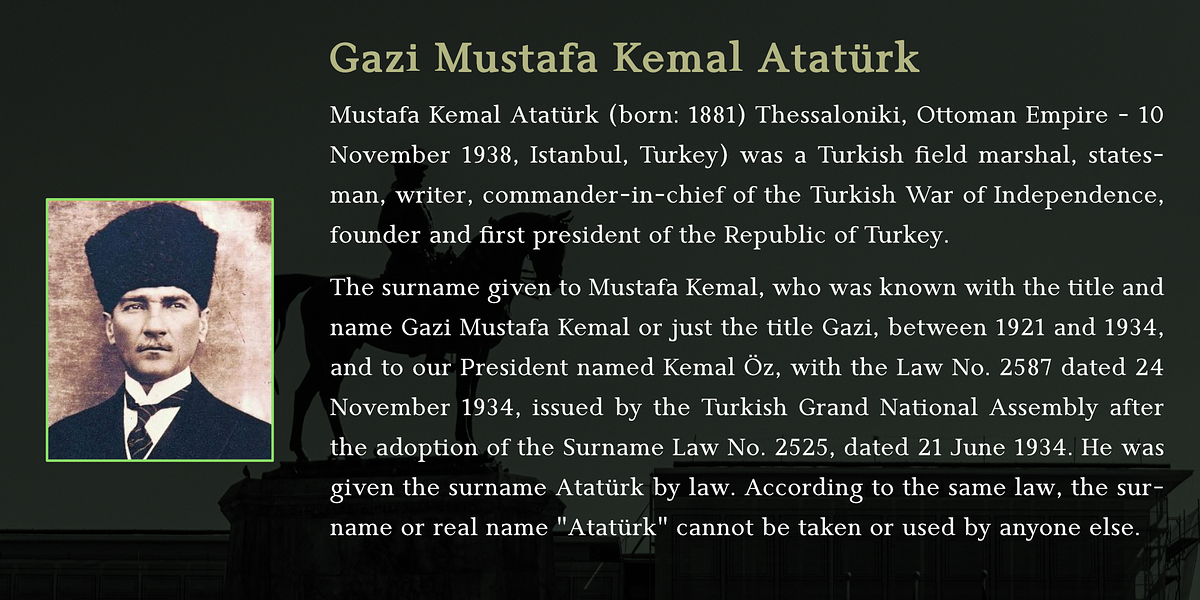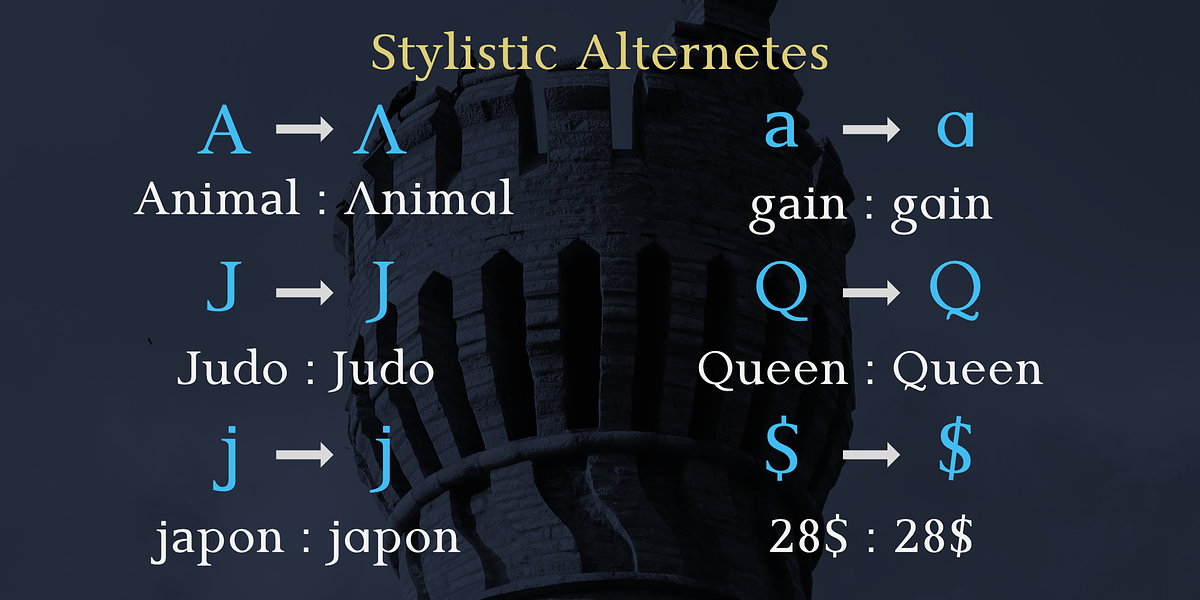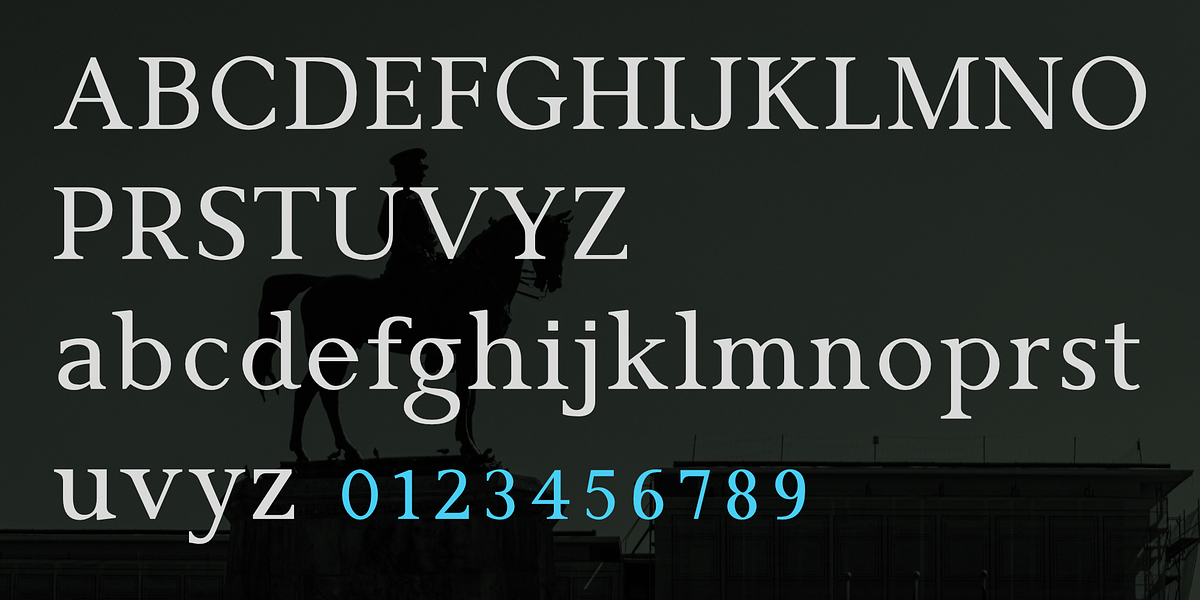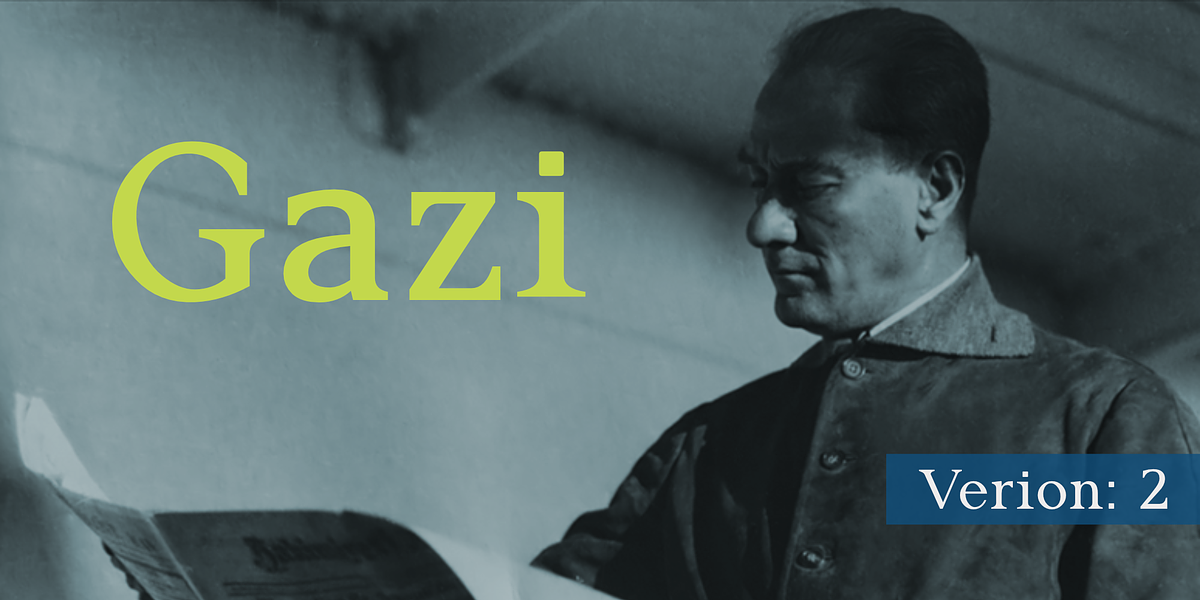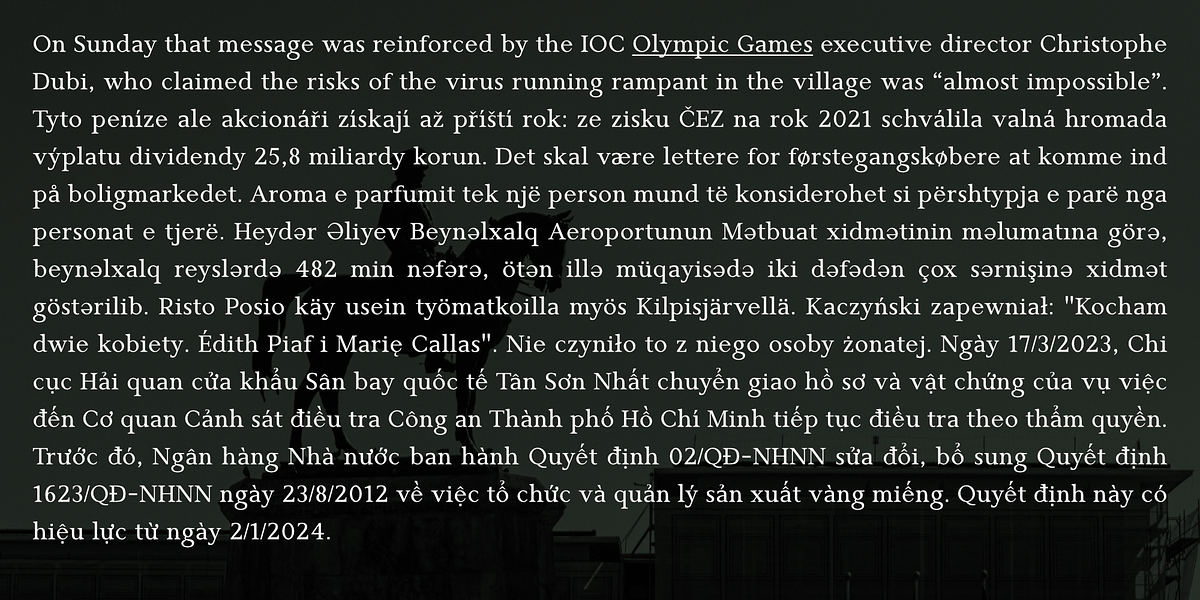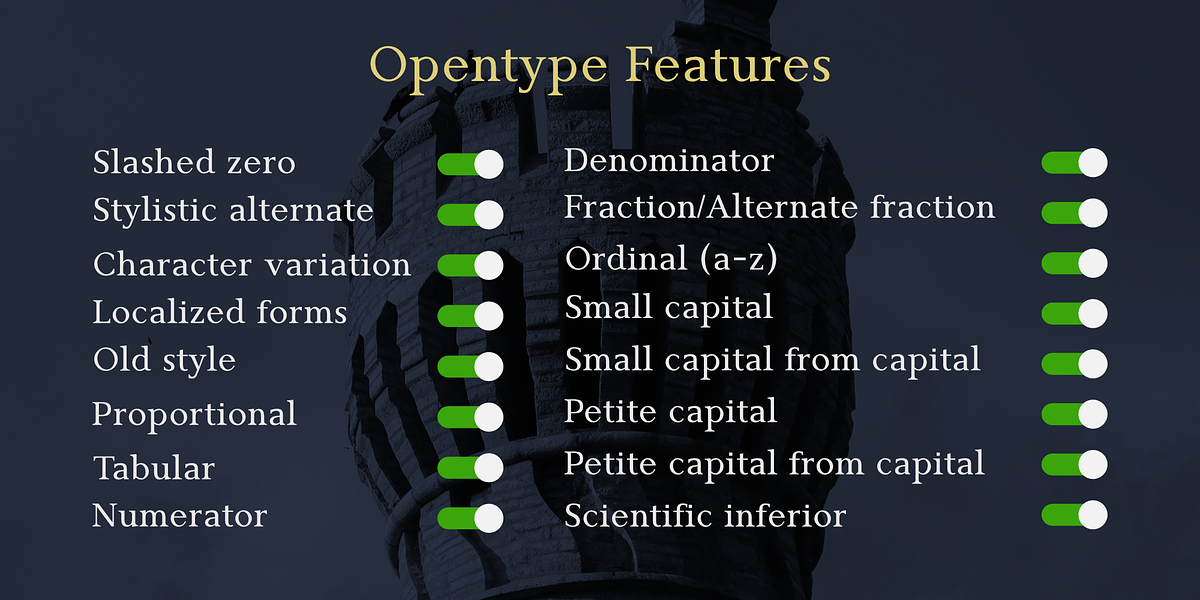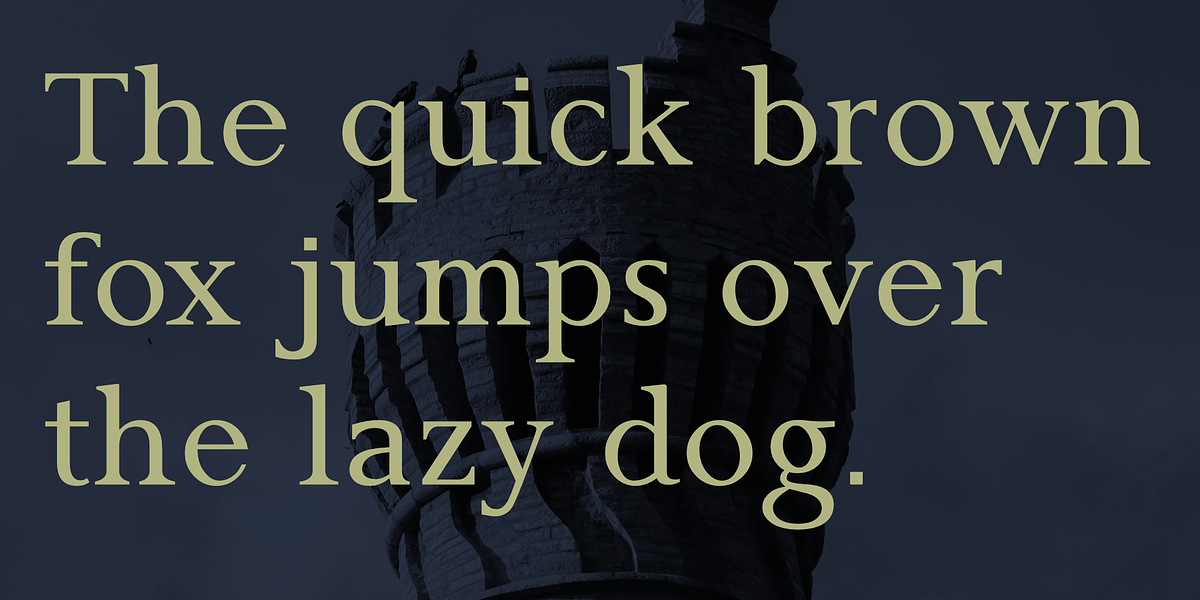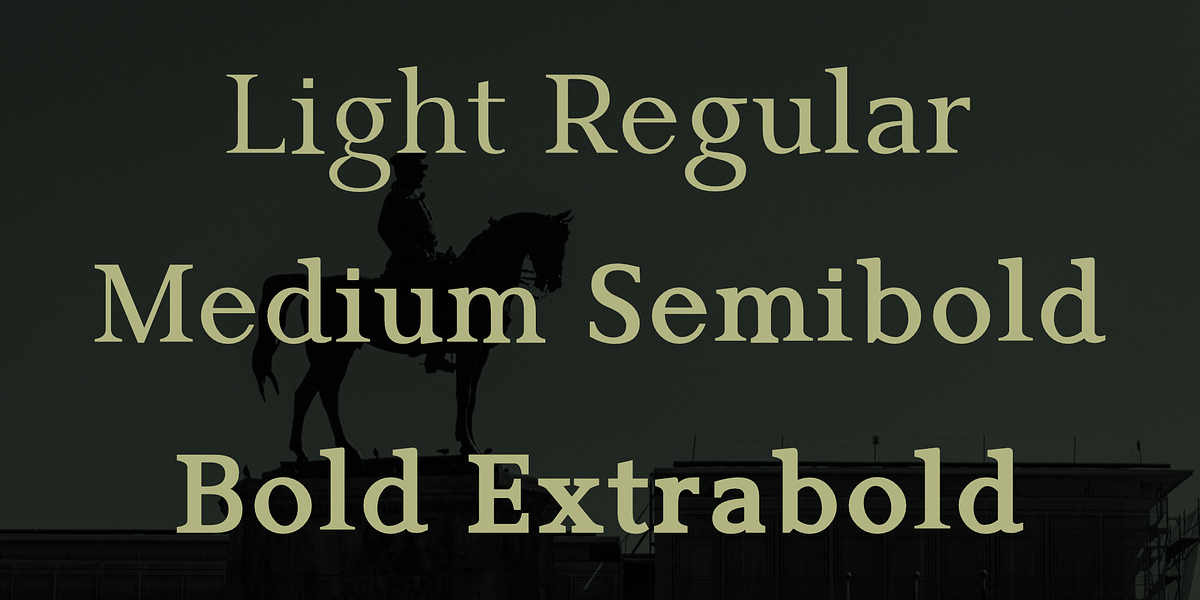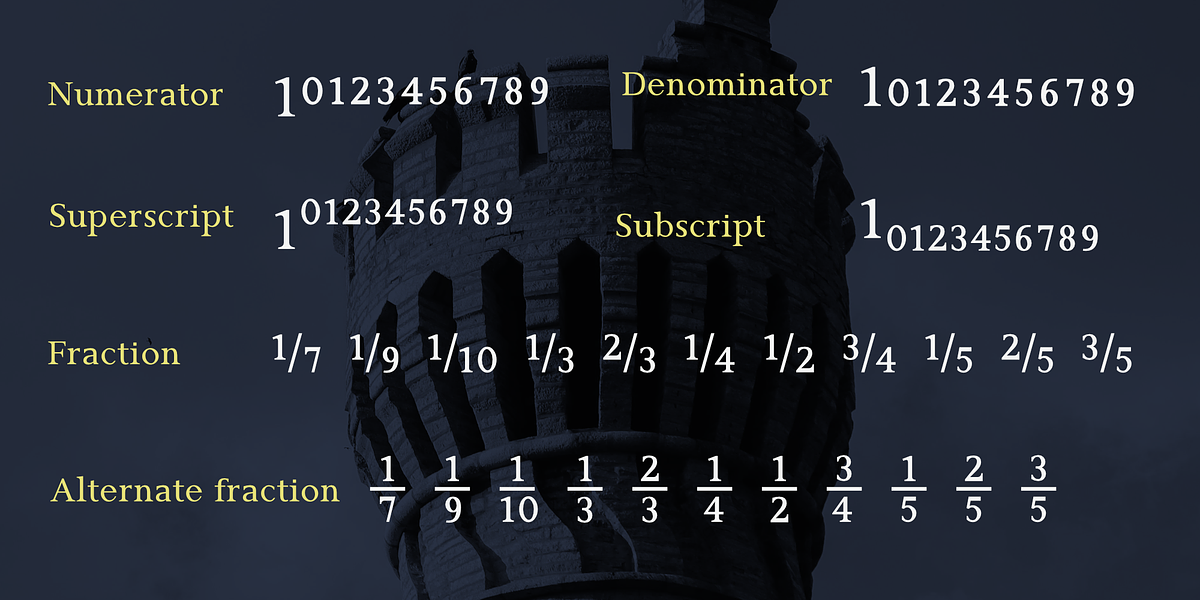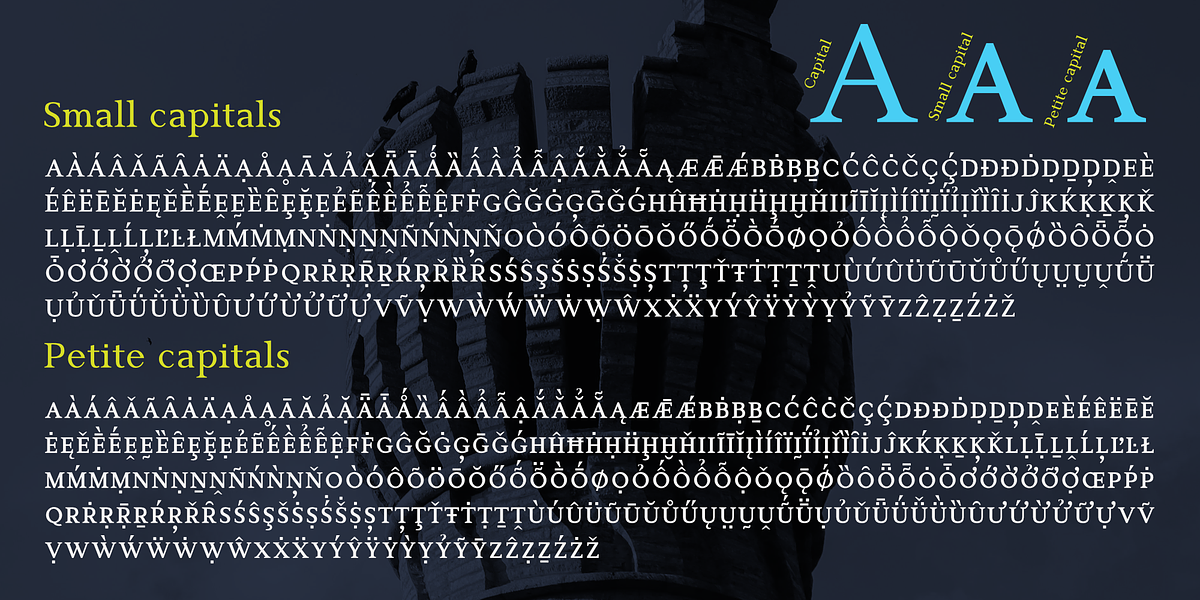
Gazi
Gazi is a comprehensive serif typeface family designed to be versatile and suitable for a wide range of applications. It features sixty distinct styles combining various weights (Light to Extrabold) and widths (Condensed to Expanded), making it adaptable for both body text and display purposes in printed and digital media.